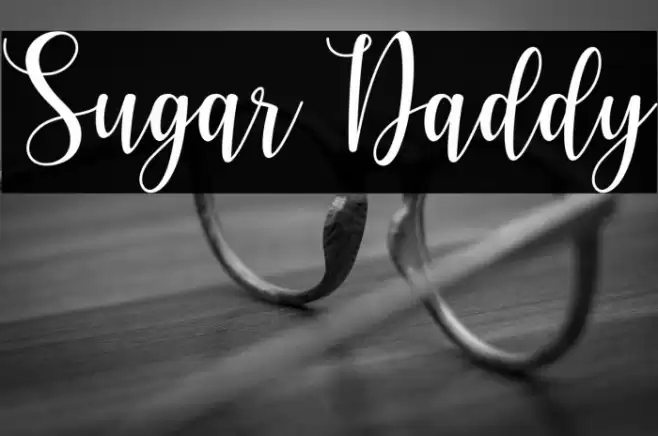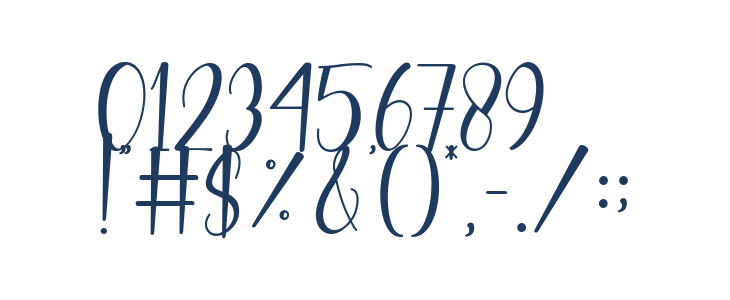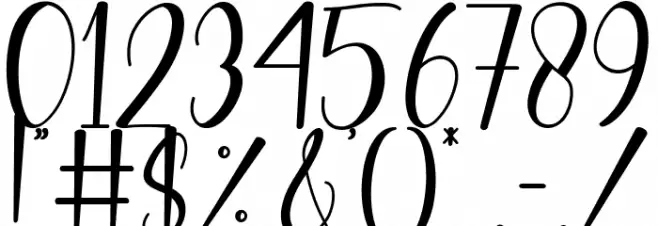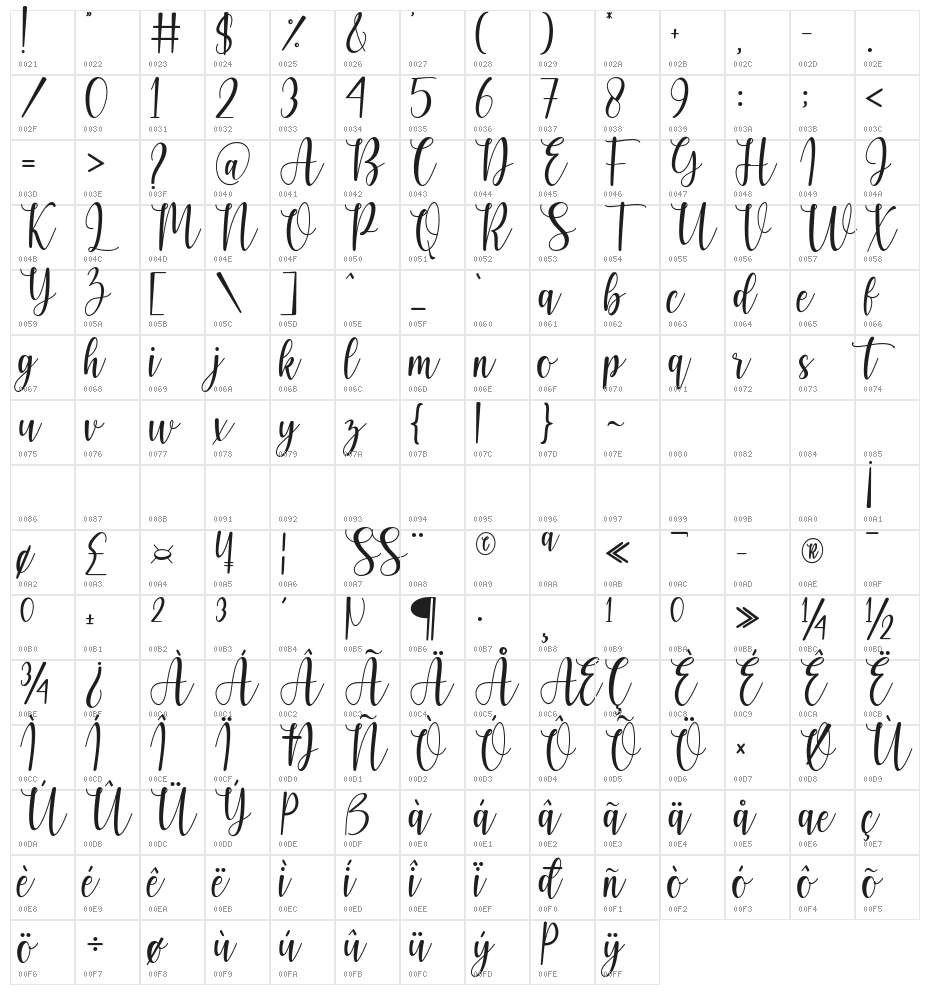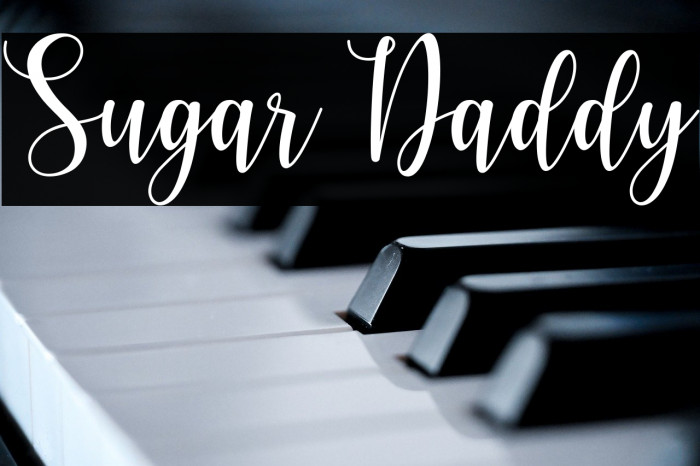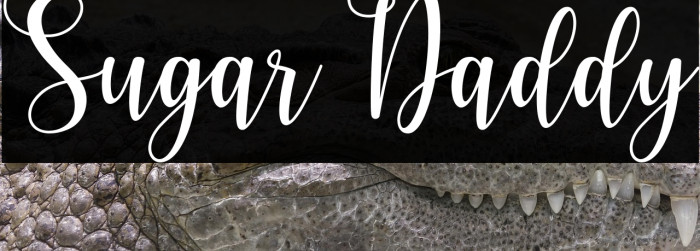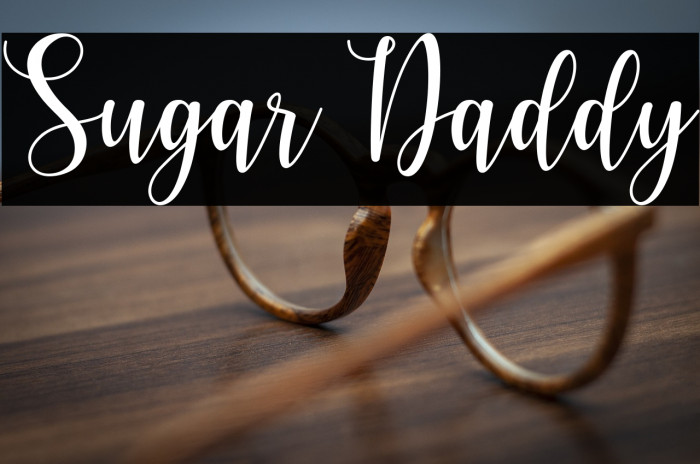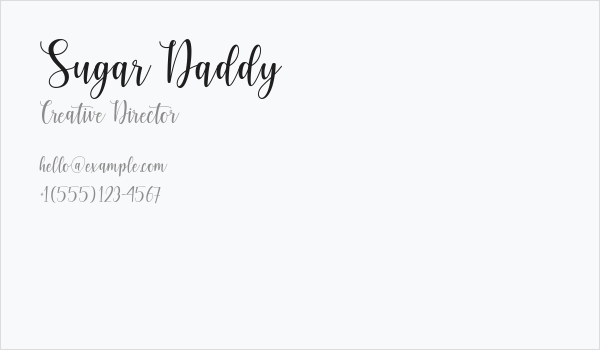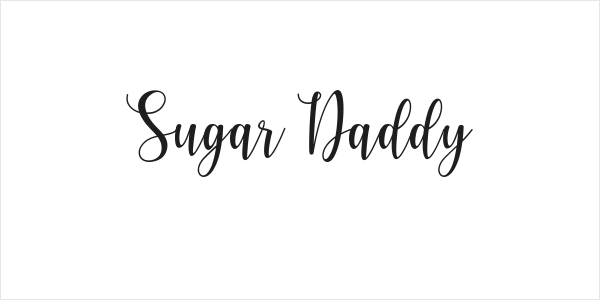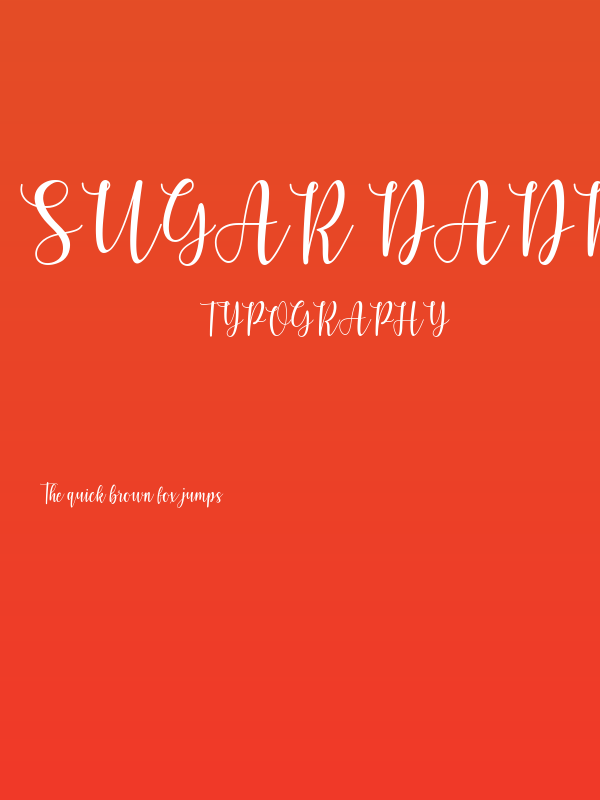
Sugar Daddy Font
Sugar Daddy Description
This font features a lively and elegant script style with a modern twist. The uppercase letters are characterized by their flowing, interconnected strokes, giving a sense of movement and grace. The lowercase letters maintain a consistent style, with smooth curves and a slight slant, enhancing readability while retaining a decorative flair. The numerals are distinct and easy to read, with a slight variation in stroke width that adds to the overall dynamic appearance. Special characters are seamlessly integrated, maintaining the font's cohesive aesthetic. This font is perfect for projects that require a touch of sophistication and charm.
A lively, elegant script font with flowing, interconnected strokes and a modern twist from Uncategorized fonts.
- Proposed Projects: Ideal for wedding invitations, branding, greeting cards, and elegant packaging designs.
- Use Case: Logos, Invitations, Decorative text